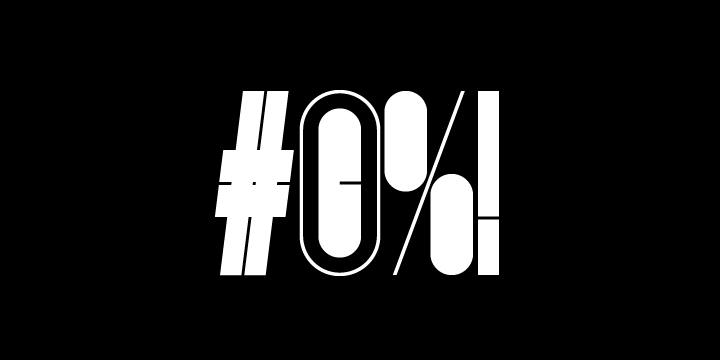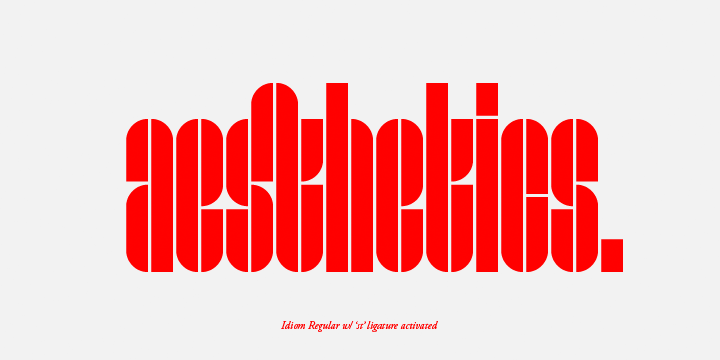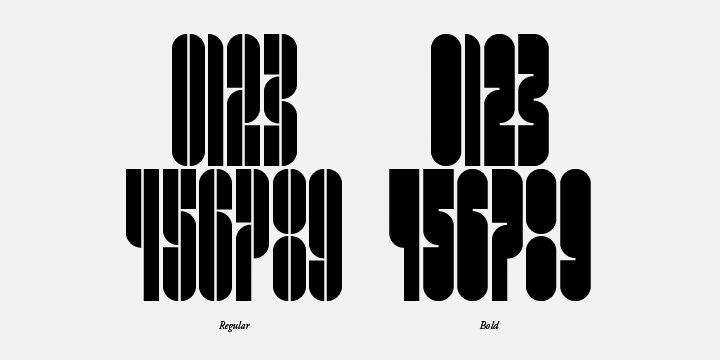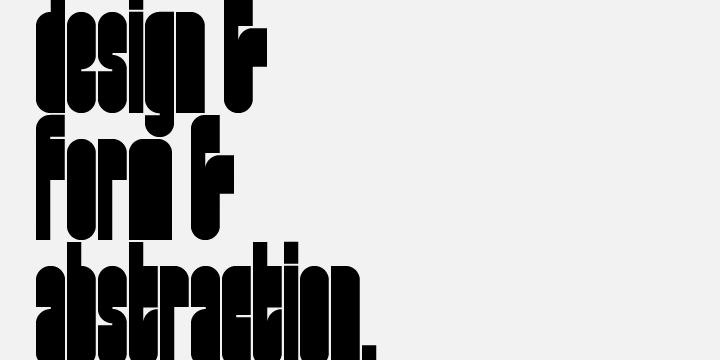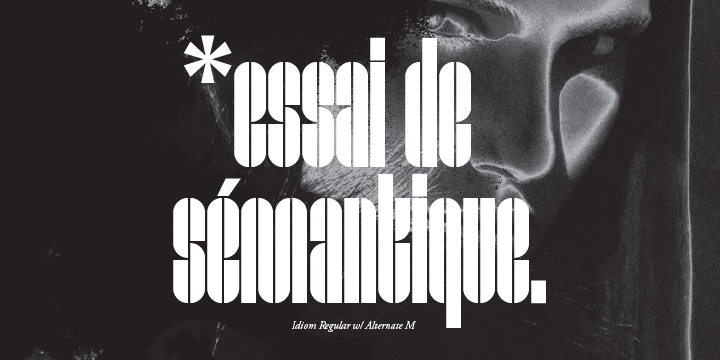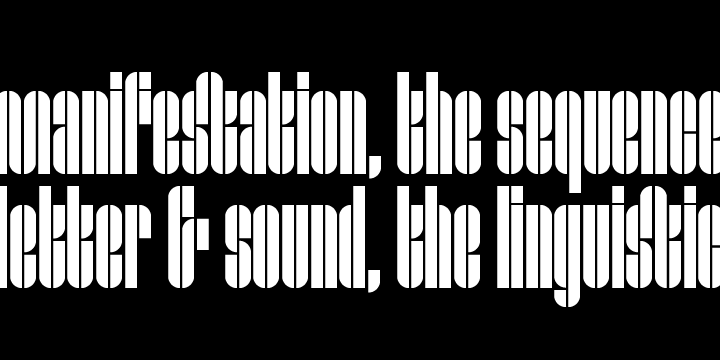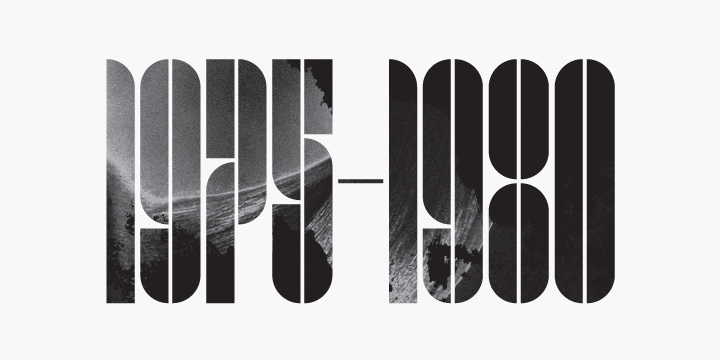
Idiom is a stencil and art deco font family. This typeface has four styles and was published by AE Type Inc.
Idiom is an extra-condensed, tightly spaced display face with congruent forms exuding a strong sense of rhythm and elevation. The basic stenciled geometric shapes are reminiscent of the decorative style found with P22 Albers and Futura Black. Careful consideration of each letter’s construction, relative to all characters, lends Idiom a decided sense of cohesion and sophistication.
The included non-traditional ‘weights’ (Medium and Bold) are completely blacked out, creating entirely new letterforms that exhibit a very stark, contemporary sense.
Increasing the versatility of the Idiom family, a selection of OpenType features allow access to a set of contrasting linear punctuation forms, unconventional ligatures, case-sensitive punctuation and more.
Features include:
Basic Ligature set including ‘f’ ligatures (ae, oe, fi, fl, ff, fh, fj, ft, fa, ct, st, rt, ot, ta, sa, mi, si, vi, su, oc, oo, ru, ib)
Alternate characters (M, W, T, ß, _, $, @, (), {}, [], /, \, |, -, –, —, +, -, ±, ≤, ≥,
, «, », and more)
Case forms (shifts various punctuation marks vertically to a position that works better with all-capital sequences, in this case the numerals or letters with ascenders)
Slashed zero
Full set of numerators/denominators and superscript/subscript
Automatic fraction feature (supports any fraction combination)
Extended language support (Latin-1 and Latin Extended-A)